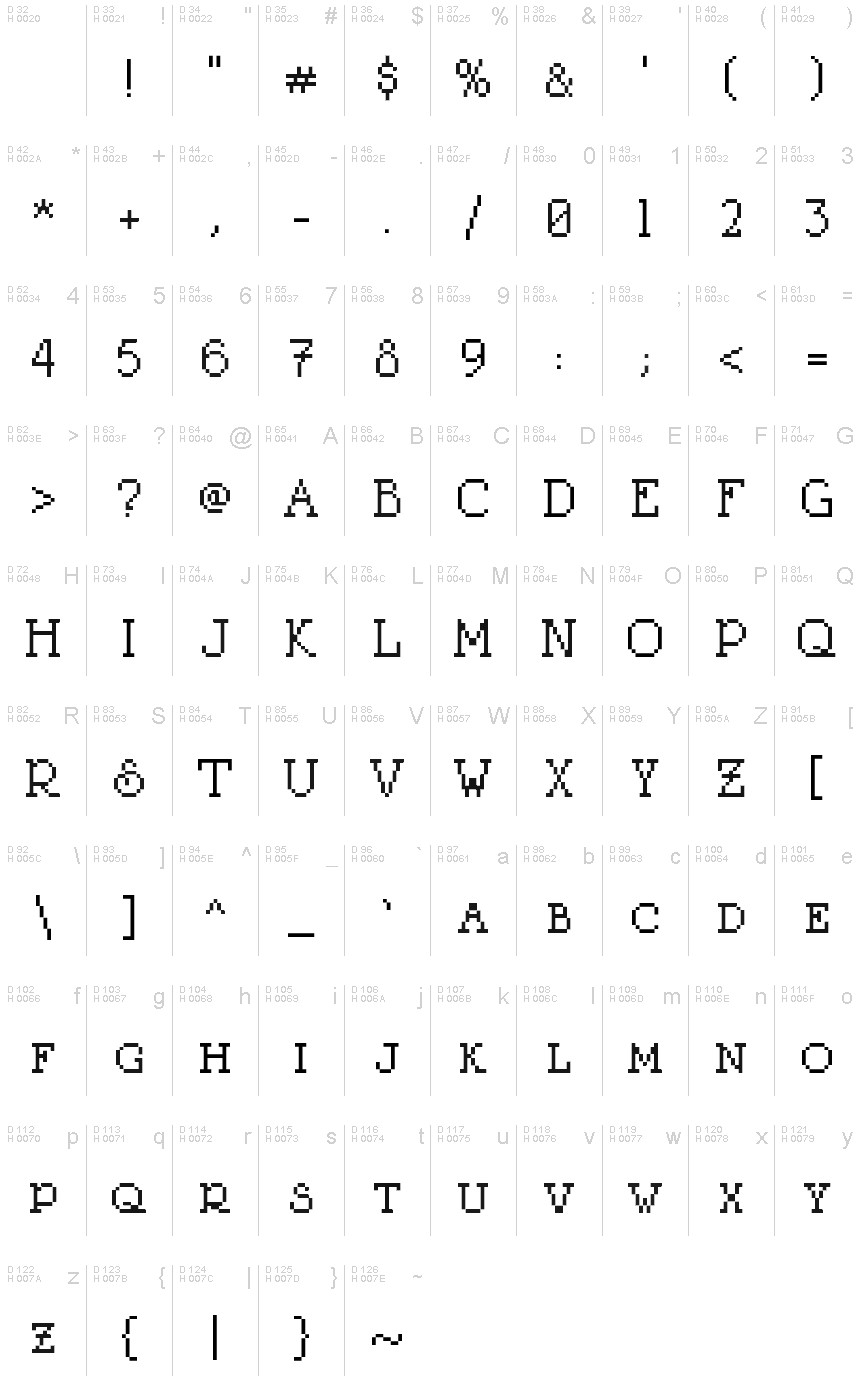
LitterLover2
Litter Lover, a captivating serif font crafted by jeti, exudes a delicate and whimsical charm. With its playful pixelated aesthetic and small caps design, this font emanates a sense of nostalgic elegance. The subtle serif accents and clean, balanced letterforms create a visually appealing and easily legible typeface.
Litter Lover's versatility shines through, making it a versatile choice for a variety of design projects. Its unique character lends itself well to branding, packaging, and editorial design, where a touch of vintage-inspired flair can elevate the overall aesthetic. Additionally, Litter Lover's legibility and distinctive style make it a compelling option for use in signage, typography-driven layouts, and even digital interfaces.
There are two versions included, each with a bold style. The first version includes slim capitals the same width as their lowercase counterparts. The second version includes wide capitals the same proportions as their lowercase counterparts.